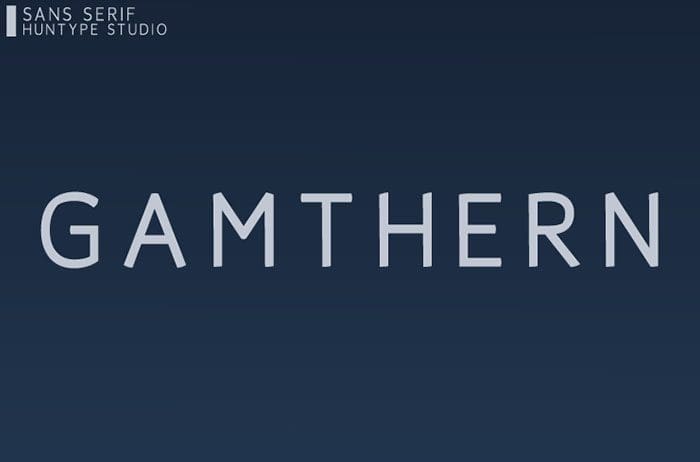
Gamthern Sans Serif Font
Gamthern simplifies elegance into one truly outstanding sans serif font. It maintains its classy calligraphic influences while feeling contemporary and fresh. This versatility will appeal to a wide range of crafty ideas, from letterheads and titles to stationery. Thanks to Mas Anis for sharing this font! Take a look at this portfolio for more of his stunning fonts.